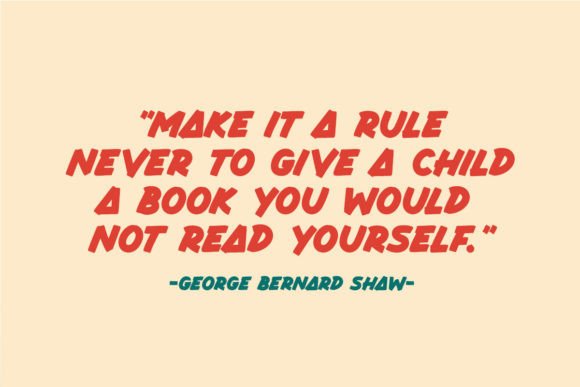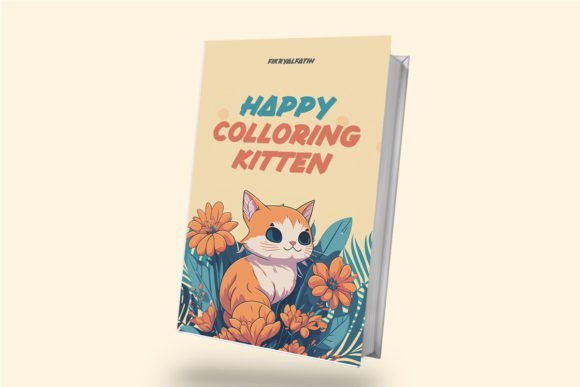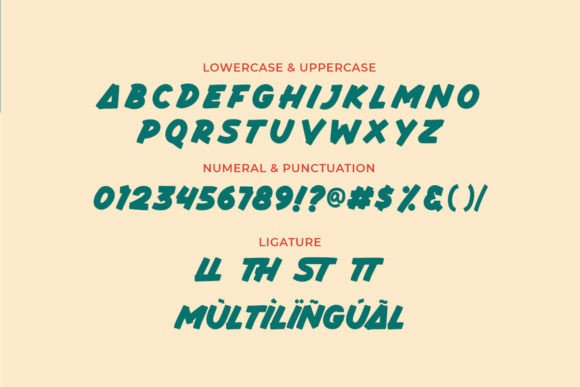
Introduction to Hello Froste Font
Hello Froste is a lot of fun displaying the typeface.
This font is perfect for all your craft projects that require a sense of vibrancy and excitement It has a fun look and is perfect as a display font.